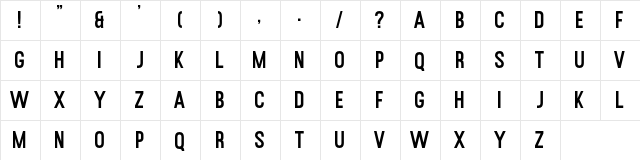
Rusted Orlando Sans Demo Regular
| Foundry | Runsell Studio |
| Designer | Satia Hayu Prabowo |
Design Context for Rusted Orlando Sans Demo Typeface
Rusted Orlando Sans Demo takes a measured approach to typography — its balanced proportions and neutral character make it a reliable workhorse for both digital and print work.
Pro Tip: Use Rusted Orlando Sans Demo in both headline and body roles to test its range before committing to a single application.